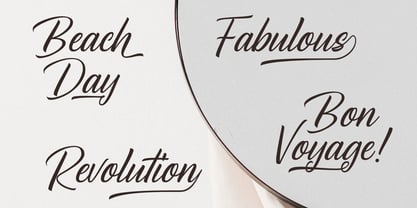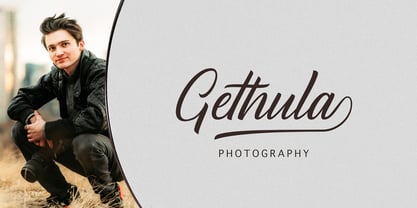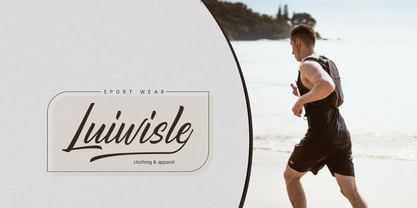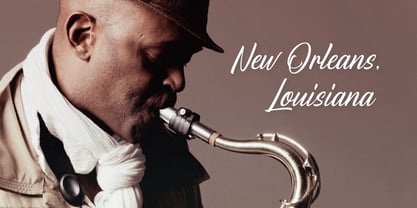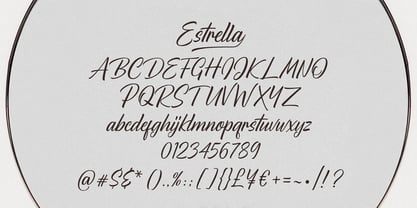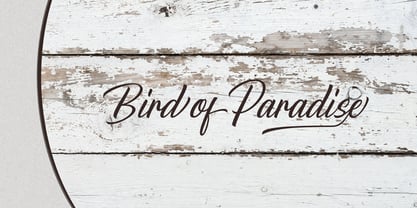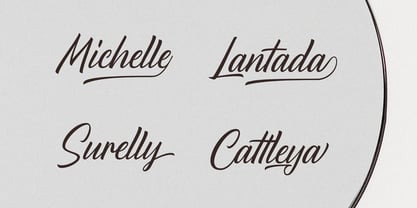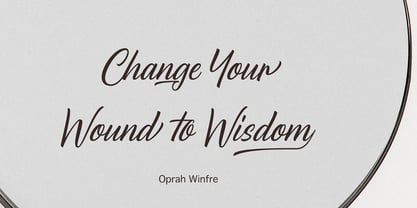
DC Estrella
by Decatype
The DC Estrella Font Family was designed by Raban Panton and published by Decatype. DC Estrella contains 1 styles. More about this family
DC Estrella is a compact and confident script typeface created for bold typographic statements. With its tight rhythm and strong strokes, it shines in logotypes, T-shirts, posters, labels, signage, and badges. The family pairs beautifully with crisp serifs or clean sans serifs, making it versatile for branding systems, packaging layouts, and editorial design. Featuring stylistic alternates, swashes, and ligatures, Estrella adds flow, character, and expressive detail to any project.
Designers: Raban Panton
Foundry: Decatype